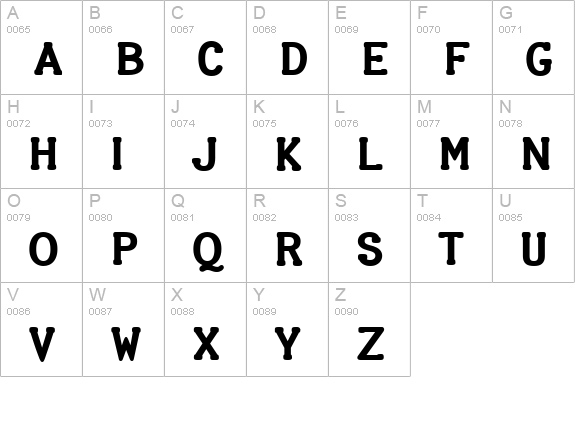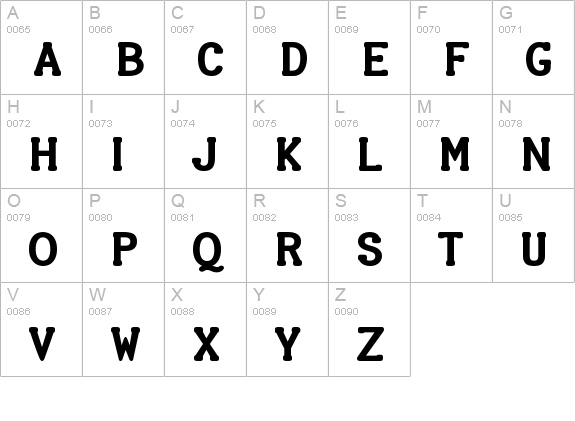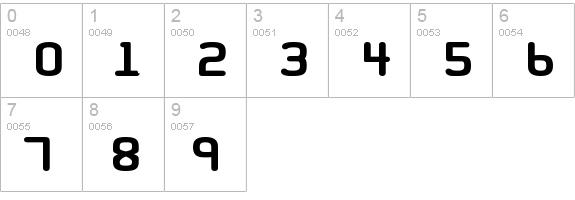
Halter Font Details
Introducing Halter, a sleek and modern font that effortlessly combines elegance with a touch of playfulness. Its unique design captures attention and adds a stylish flair to any project. With its clean lines and balanced curves, Halter is the perfect choice for logos, branding, headlines, and more. What makes Halter even more remarkable is that it is available for free! That's right, you can download this incredible font without spending a dime. FontsMarket.com is your go-to destination to get your hands on this versatile typeface. Simply head over to FontsMarket.com, search for Halter, and start adding this stunning font to your collection. Whether you're a designer looking to enhance your creations or a business owner seeking a fresh and eye-catching font for your brand, Halter is here to elevate your projects. Its versatility allows it to adapt to various design styles, making it suitable for both contemporary and classic designs. With Halter, you can say goodbye to boring and generic fonts. This typeface brings a unique touch to your creations, setting them apart from the crowd. Its sleek and modern aesthetic ensures that your message is delivered with impact and sophistication. Don't miss out on the opportunity to add Halter to your font arsenal. Download it for free at FontsMarket.com and unlock a world of creative possibilities. Let Halter inspire you and take your designs to new heights.